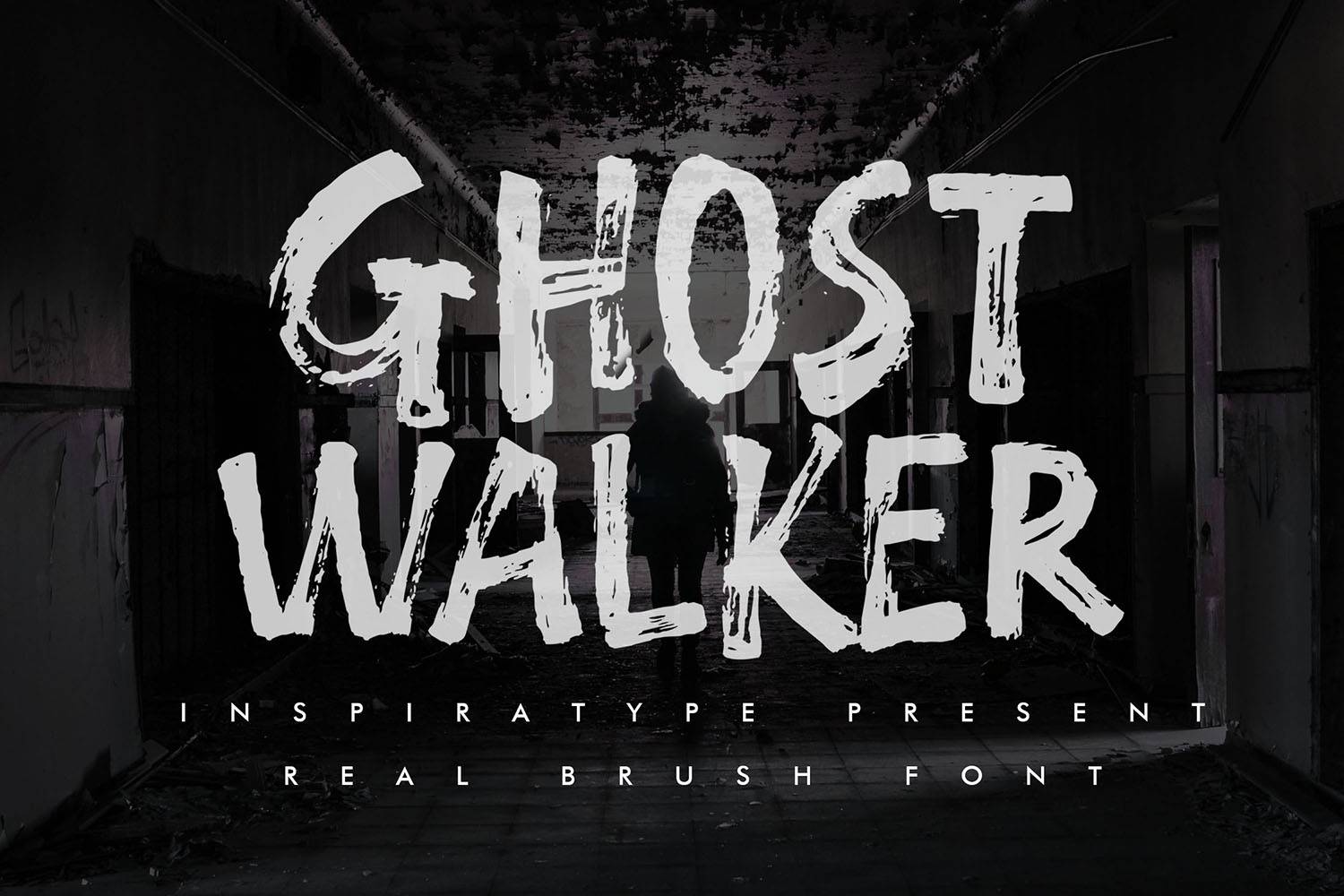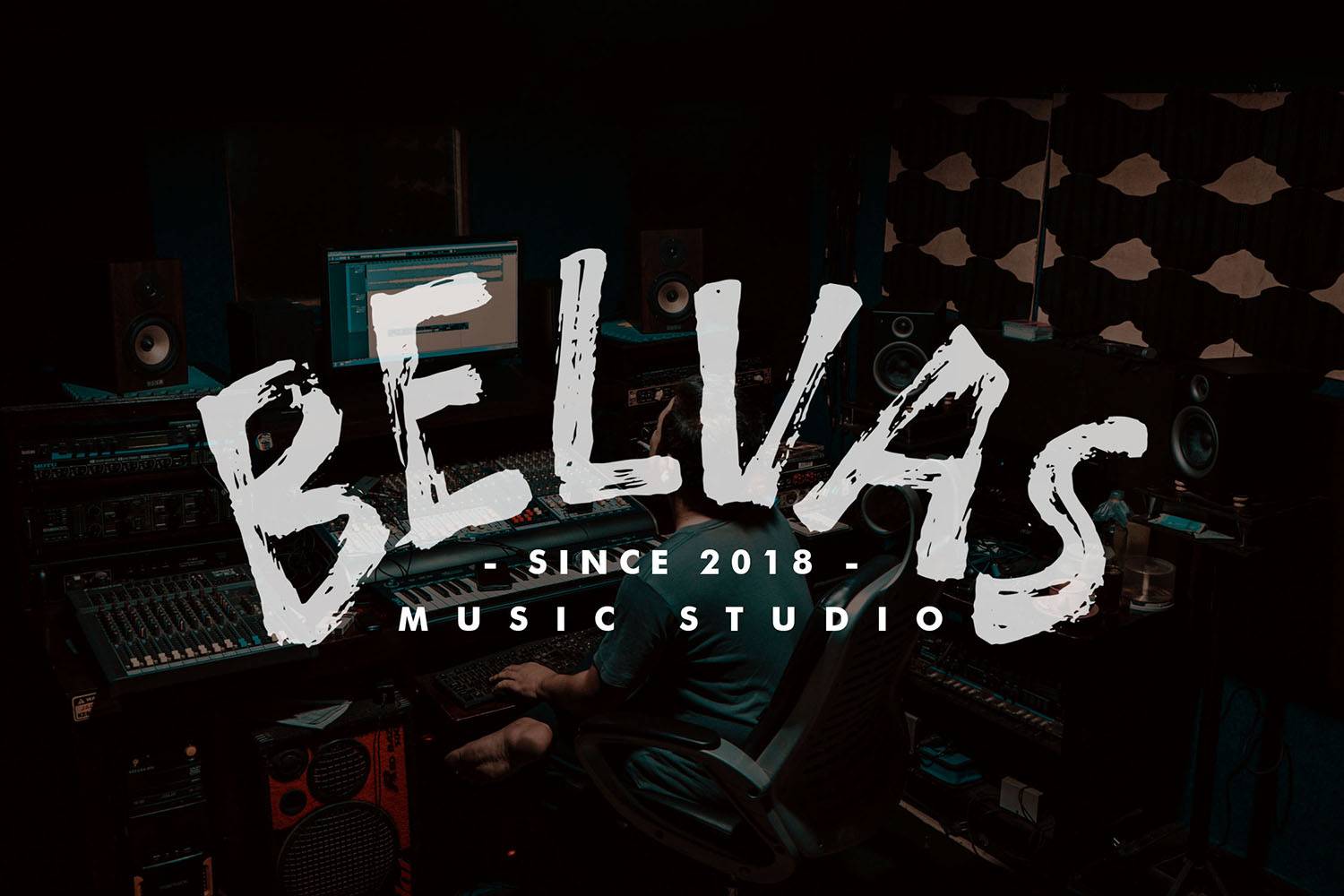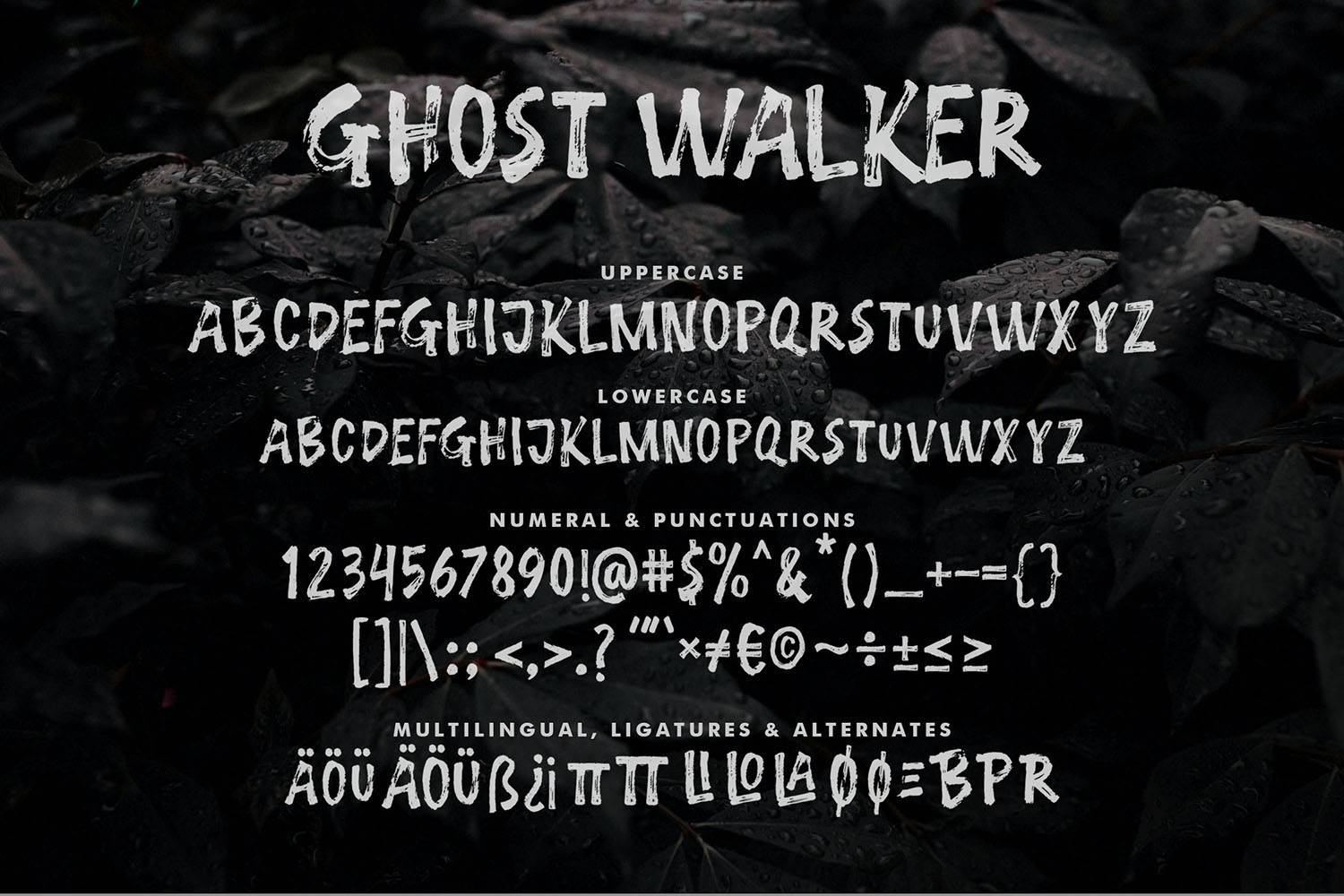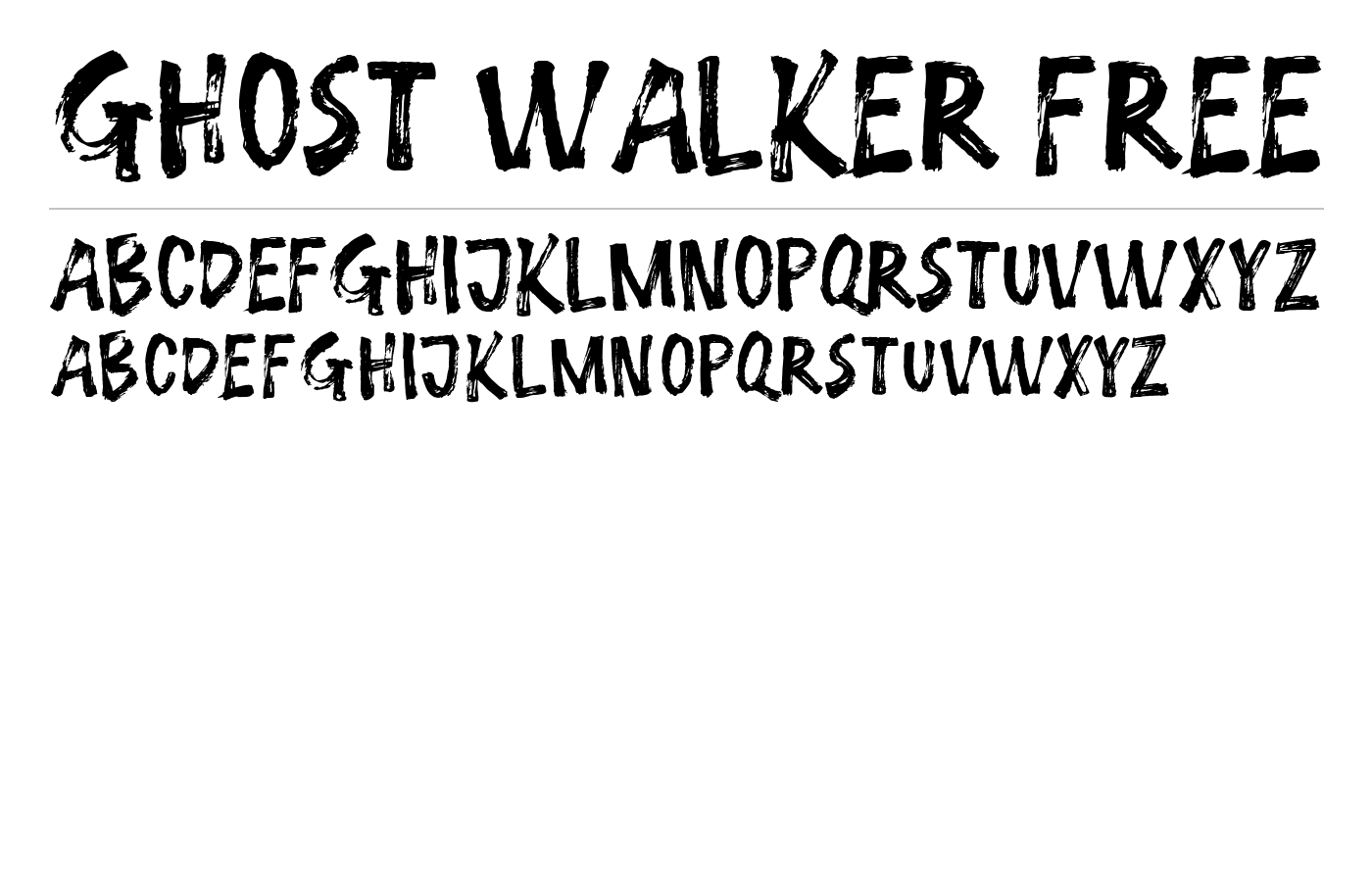
Ghost Walker is a bold, rough-edged sans serif font with a hand-painted, textured look that gives it a gritty, energetic feel. Its irregular strokes and distressed style make it perfect for designs needing a raw, edgy vibe, ideal for posters, headlines, or creative branding that wants to stand out with a rebellious or artistic touch.
Ghost Walker Font
About Ghost Walker Font
| Font family | Ghost Walker Font |
| Designer | Inspiratype |